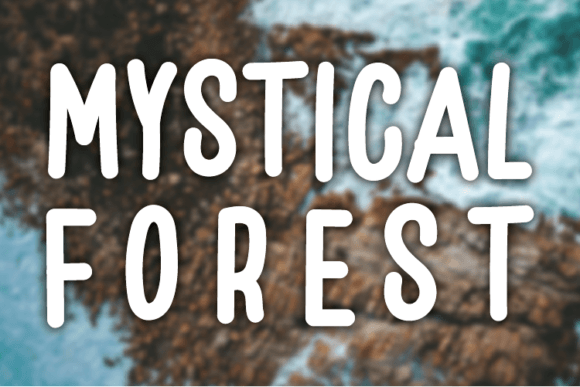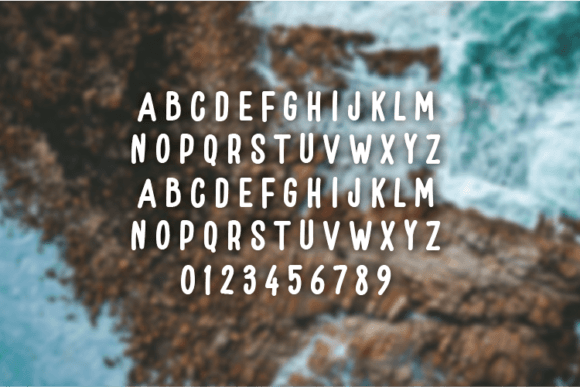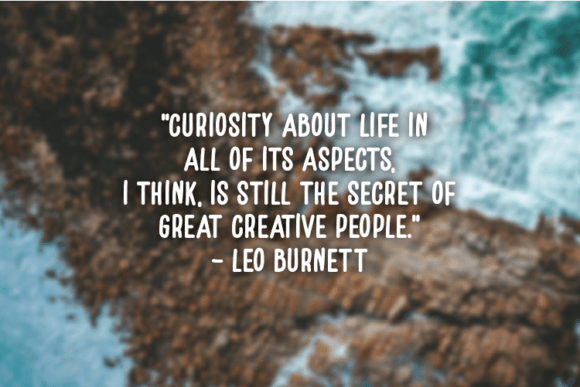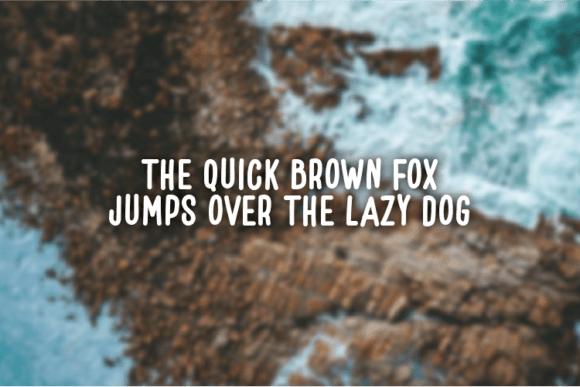
Mystical Forest Font
About Mystical Forest Font
“Mystical Forest” is a fun and casually handwritten font that brings a sense of playfulness and uniqueness to your designs. With its whimsical and creative style, this font serves as a valuable asset to your font library, as it has the potential to enhance a wide variety of creative creations, regardless of the topic or theme.
The charm of “Mystical Forest” lies in its ability to convey a sense of spontaneity and creativity. The font’s handwritten appearance creates a lively and engaging aesthetic that can complement a variety of design concepts.
One of the standout features of “Mystical Forest” is its ability to inject a dose of fun and quirkiness into your work. It encourages a playful and imaginative atmosphere, making it a great choice for designs that aim to stand out and captivate audiences with a sense of whimsy.
When you incorporate “Mystical Forest” into your designs, you can expect your projects to exude a sense of originality and charm. This font has the power to create a memorable and joyful visual experience for your audience, making it a valuable asset for your creative endeavors.
In summary, “Mystical Forest” is not just a font; it’s a design asset that can enhance your creative projects with its fun and casual appeal. Its ability to add a playful touch to any creation makes it a valuable addition to your design toolkit. Feel confident in using “Mystical Forest” to enhance any creation, as it has the potential to bring a sense of creativity and whimsy to your designs!